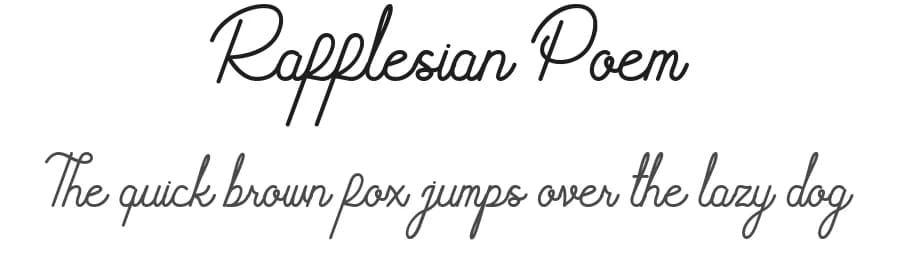
About Rafflesian Poem Font
Rafflesian Poem is a script & handwritten font designed by Rivo Dwi Adriansyah. It includes 161 glyphs, a regular weight, TTF (TrueType) format, and 107 languages. Rafflesian Poem is free to download; check the license details on this page before commercial use. Script & handwritten fonts like Rafflesian Poem work best for wedding invitations, greeting cards, signatures, and elegant branding.
Rafflesian Poem Font is a script font that shines as a display or heading face. Pair it with a clean sans-serif or serif font for body text β the contrast creates a clear hierarchy while the two styles stay balanced and easy to read.